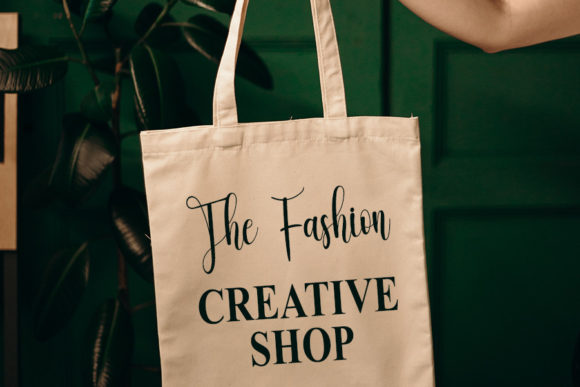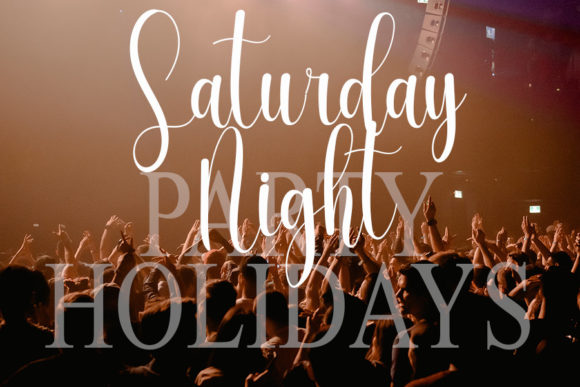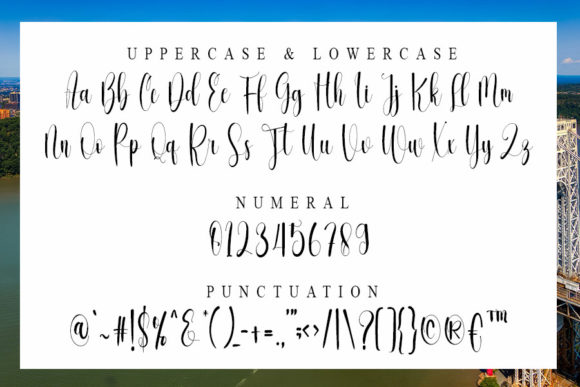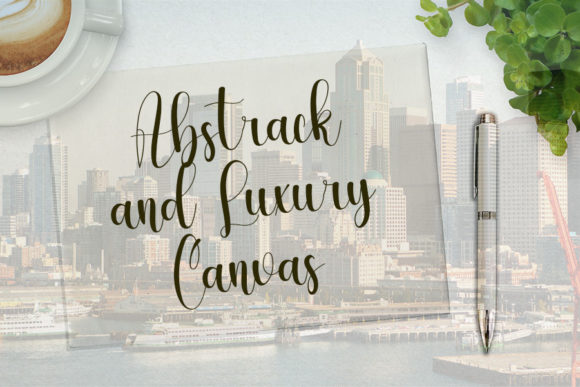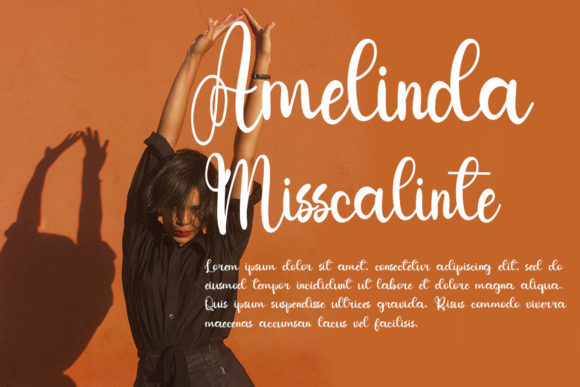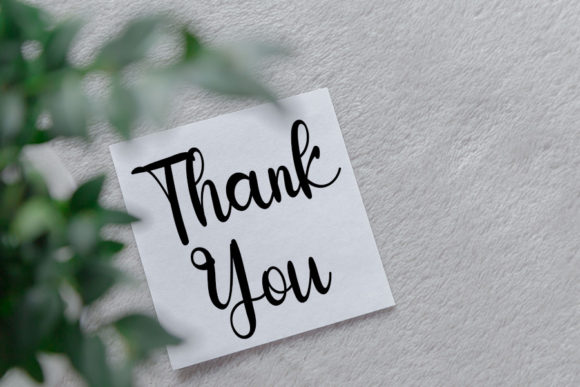
Washington Font
About Washington Font
Washington is an enchanting script font. This delicate font has a wide spectrum of applications ranging from greeting cards to headlines and logos.